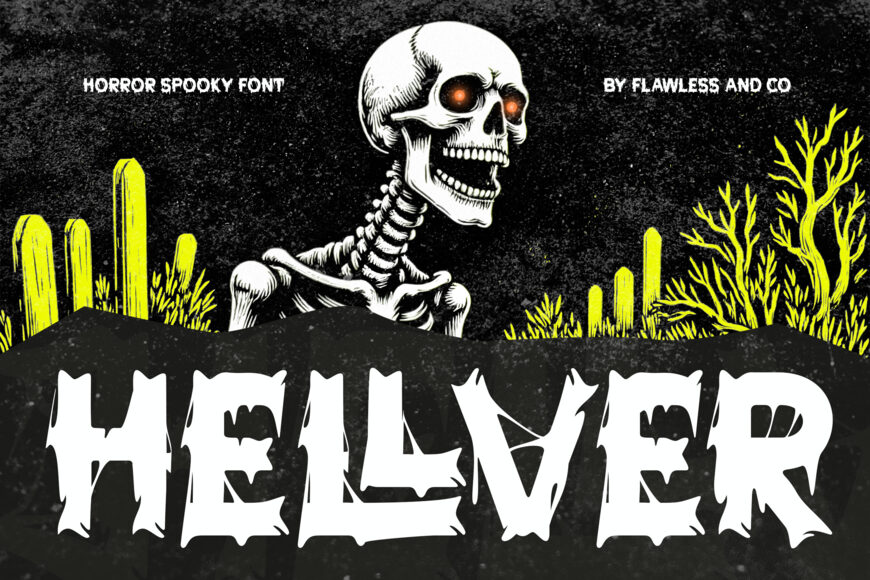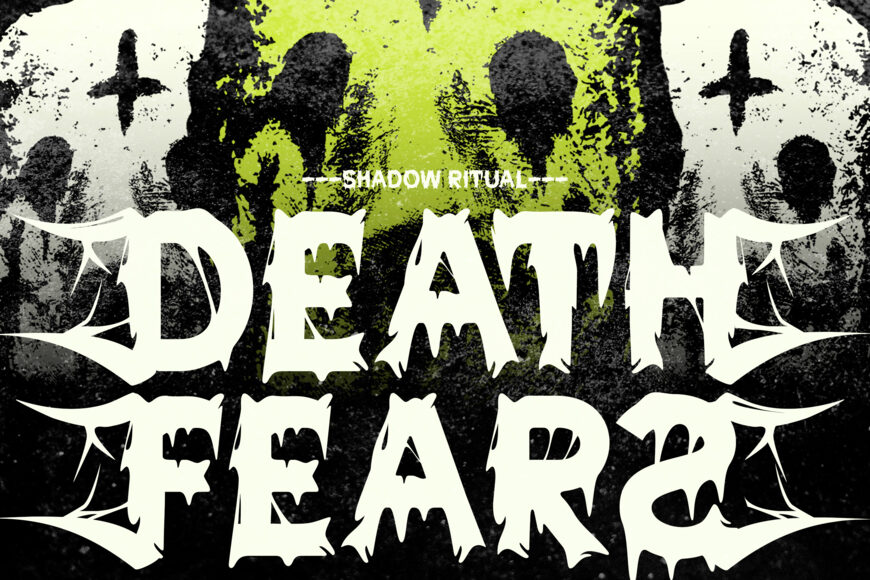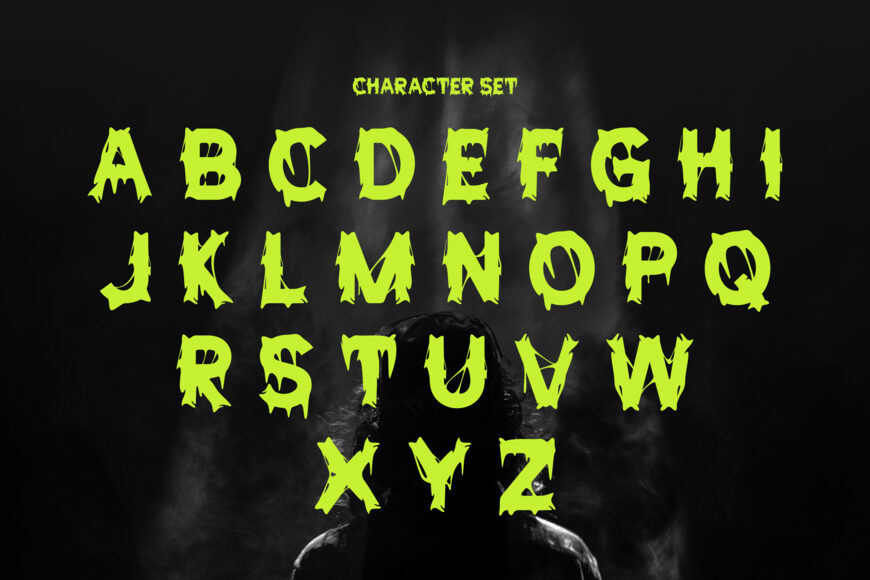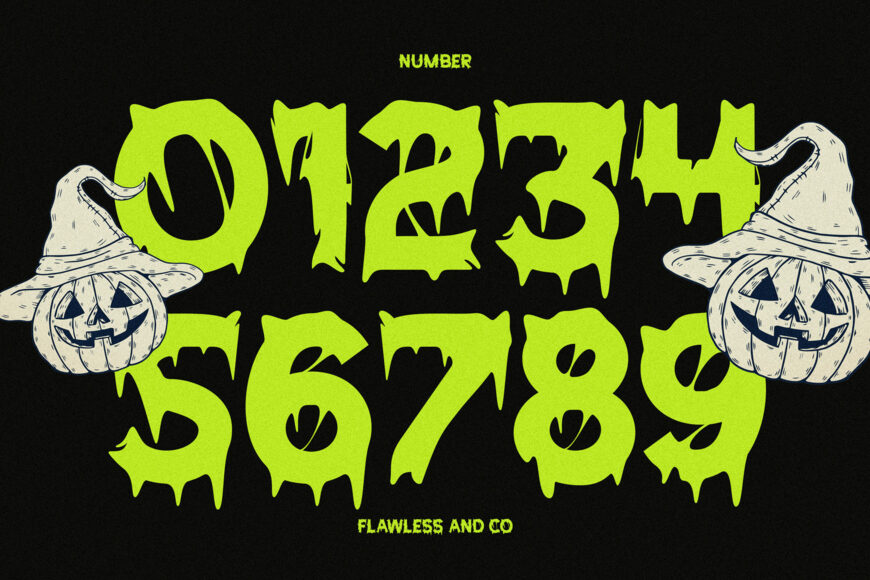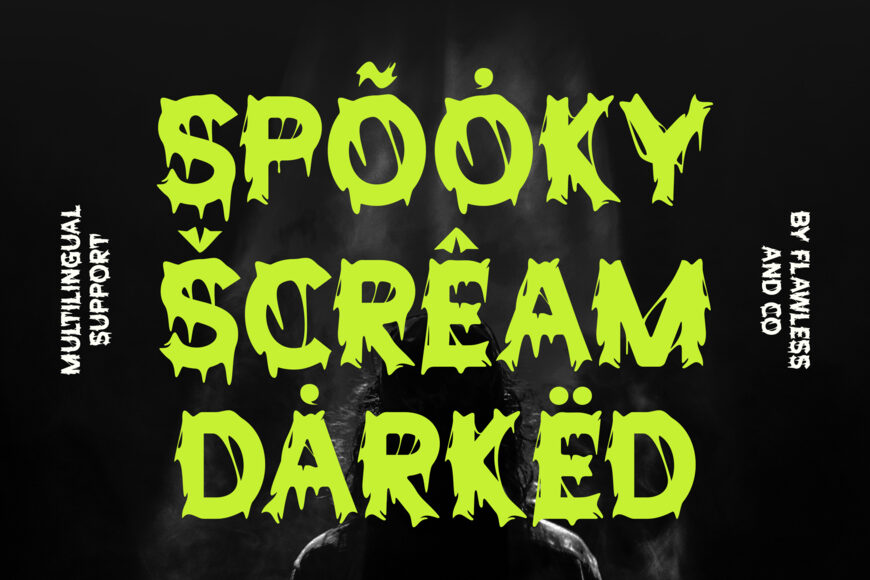
Hellver is a horror display font with a dark, spooky, and dramatic visual character. Its distinctive letterforms are designed to create an eerie atmosphere while maintaining strong shapes for large-scale typography.
Its bold display structure is suitable for titles, headlines, posters, logos, and promotional artwork where a dark visual direction is required. Hellver works well with Halloween and horror-themed visuals, including haunted scenes, monsters, skulls, ghosts, dark fantasy elements, and supernatural artwork. The font can be used for seasonal projects as well as entertainment and creative designs with a darker aesthetic.